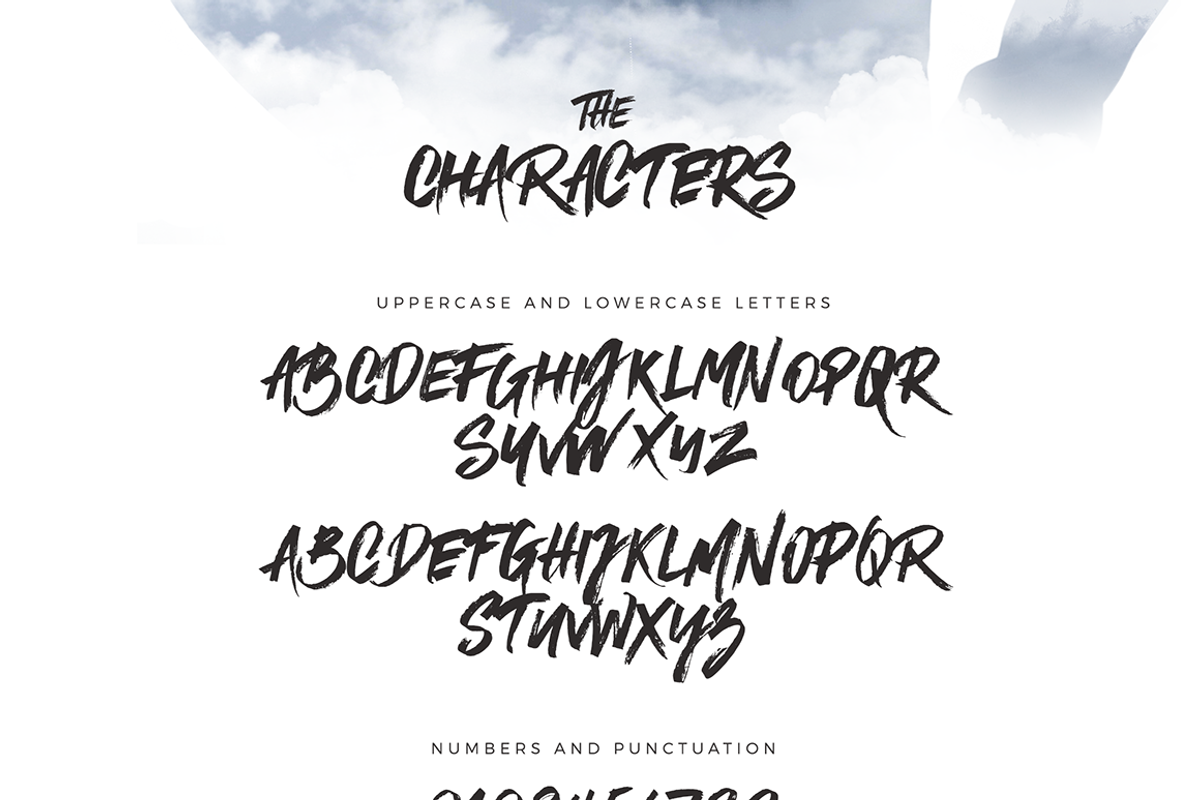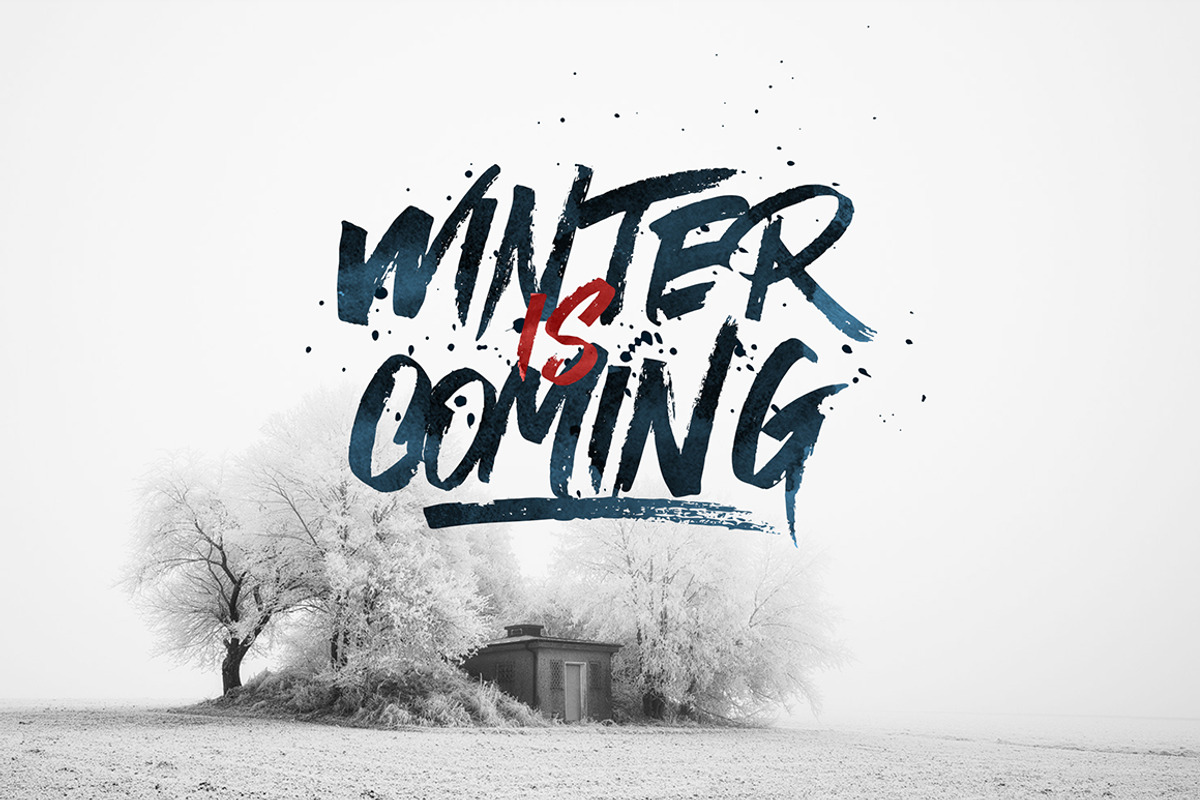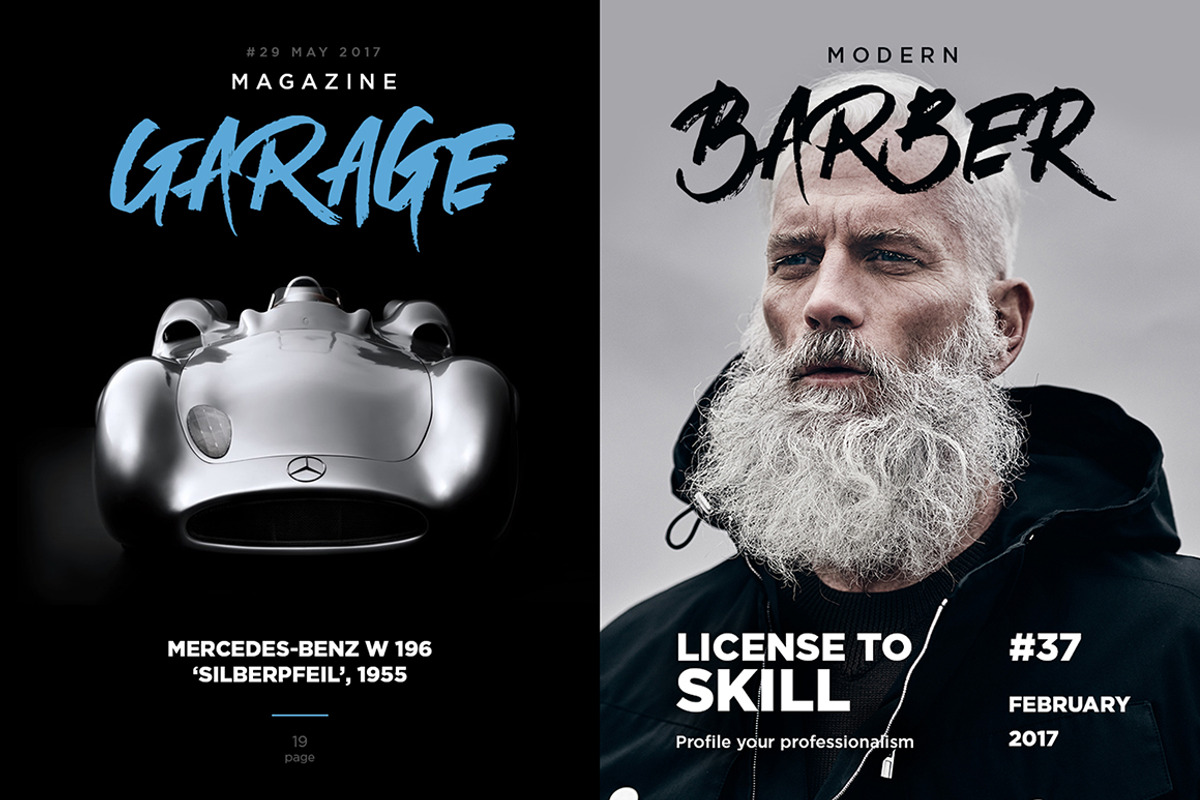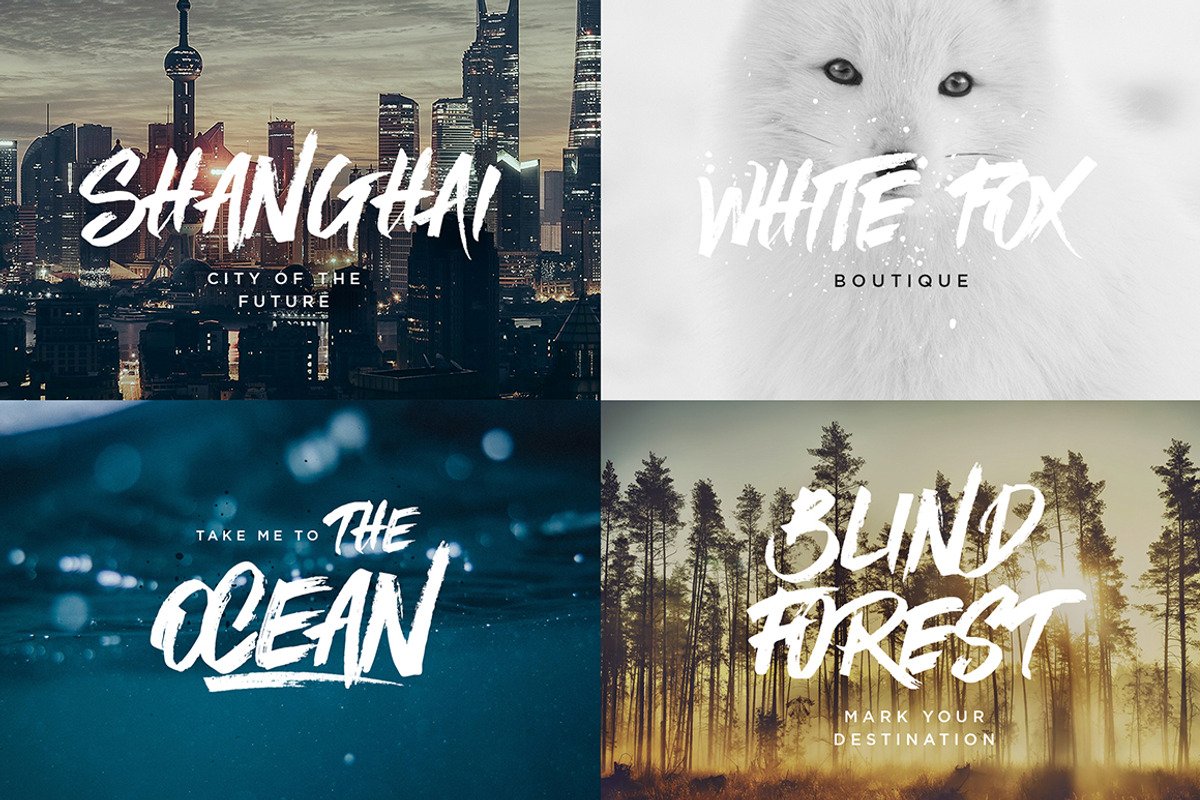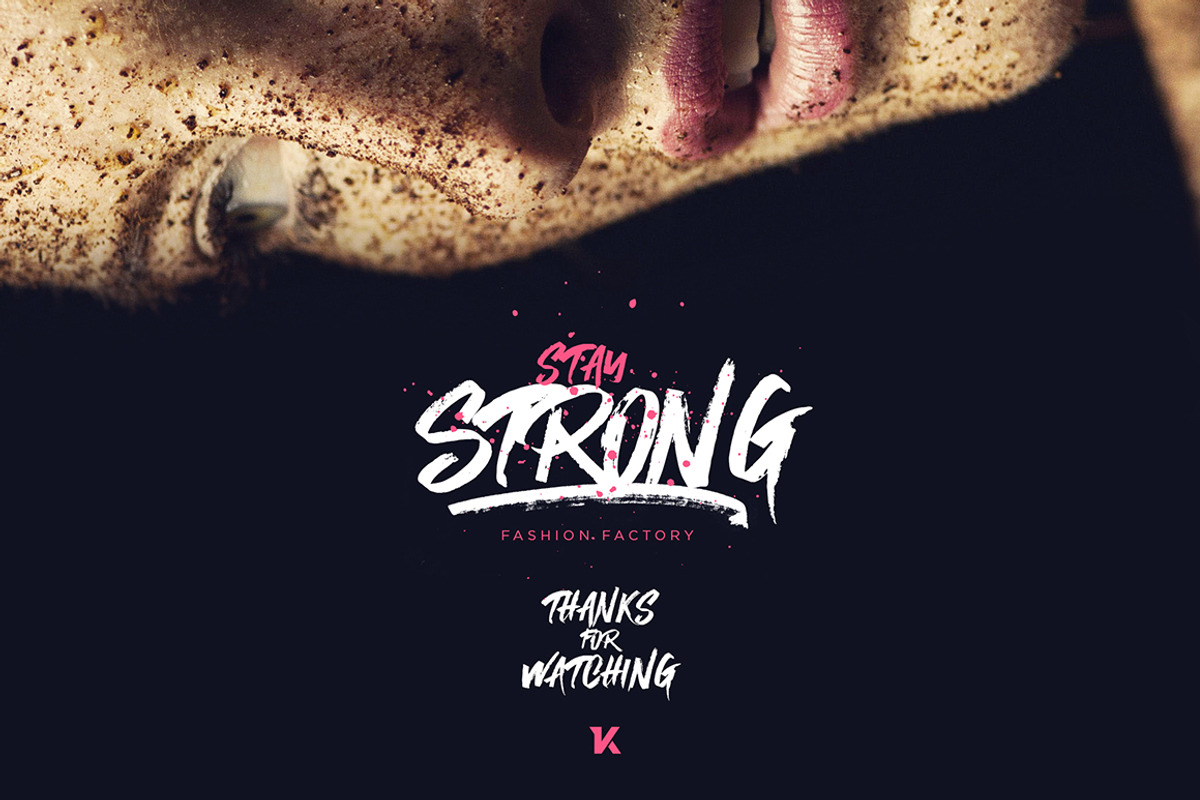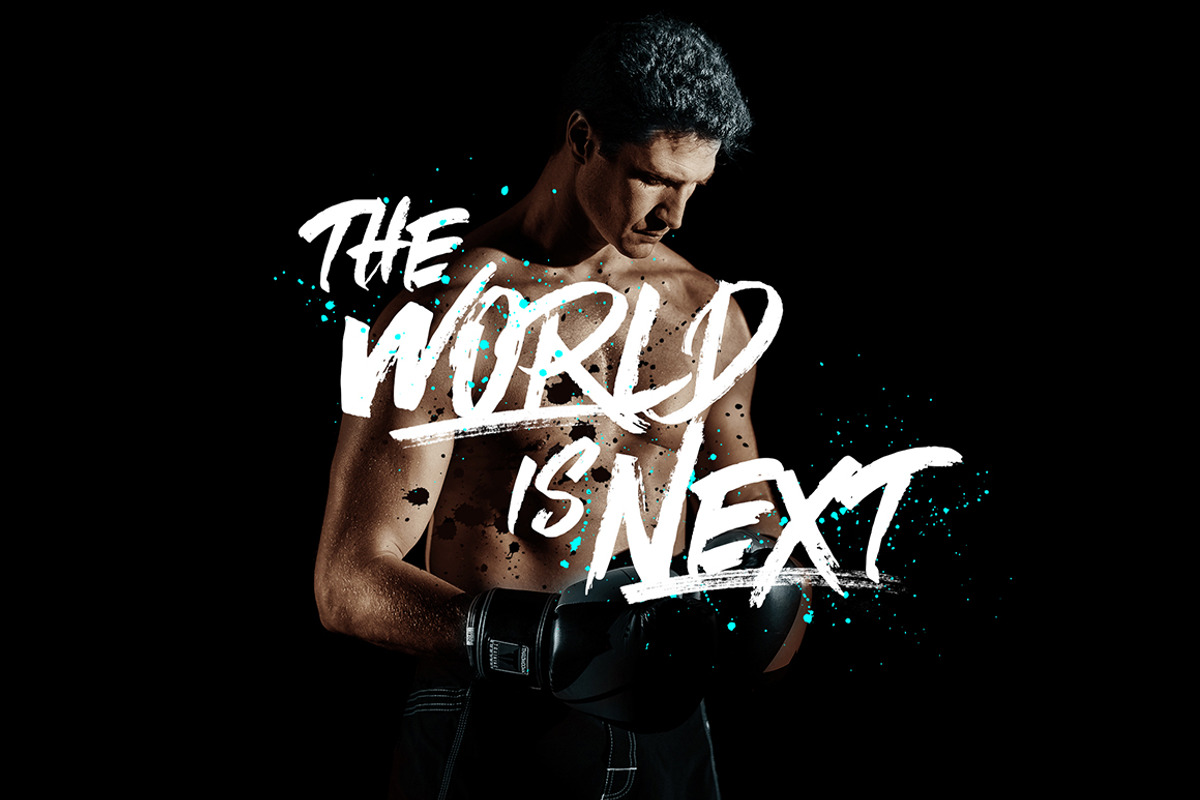
Mystique Marker Font
Mystique Marker Font by kavoon is a font selected for branding, posters, packaging, typography.
- Mystique comes with a full set of upper and lower case characters - giving you the extra freedom to turn your text into authentic custom-mad
- Mystique font Includes a large range of glyphs including numerals, punctuation & multilingual support.
Why Mystique Marker Font is worth a look
Mystique Marker Font by kavoon fits naturally into Branding, posters, packaging, typography.